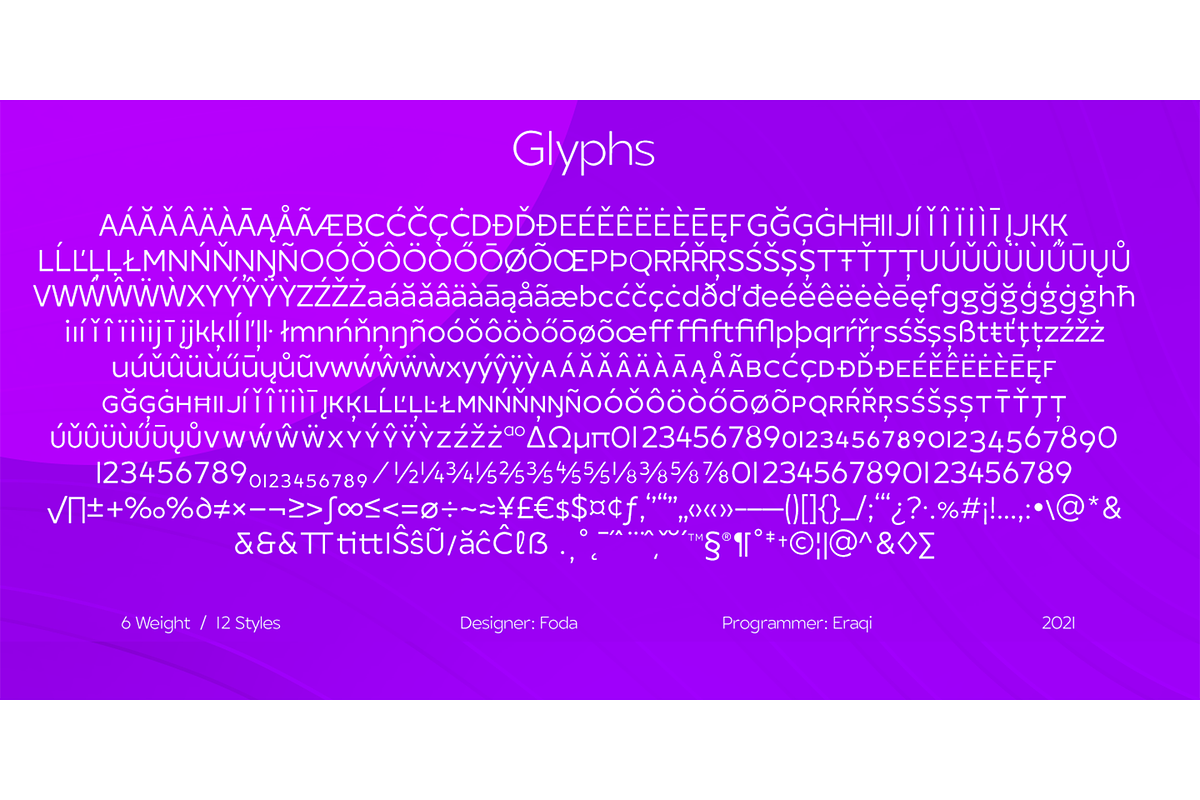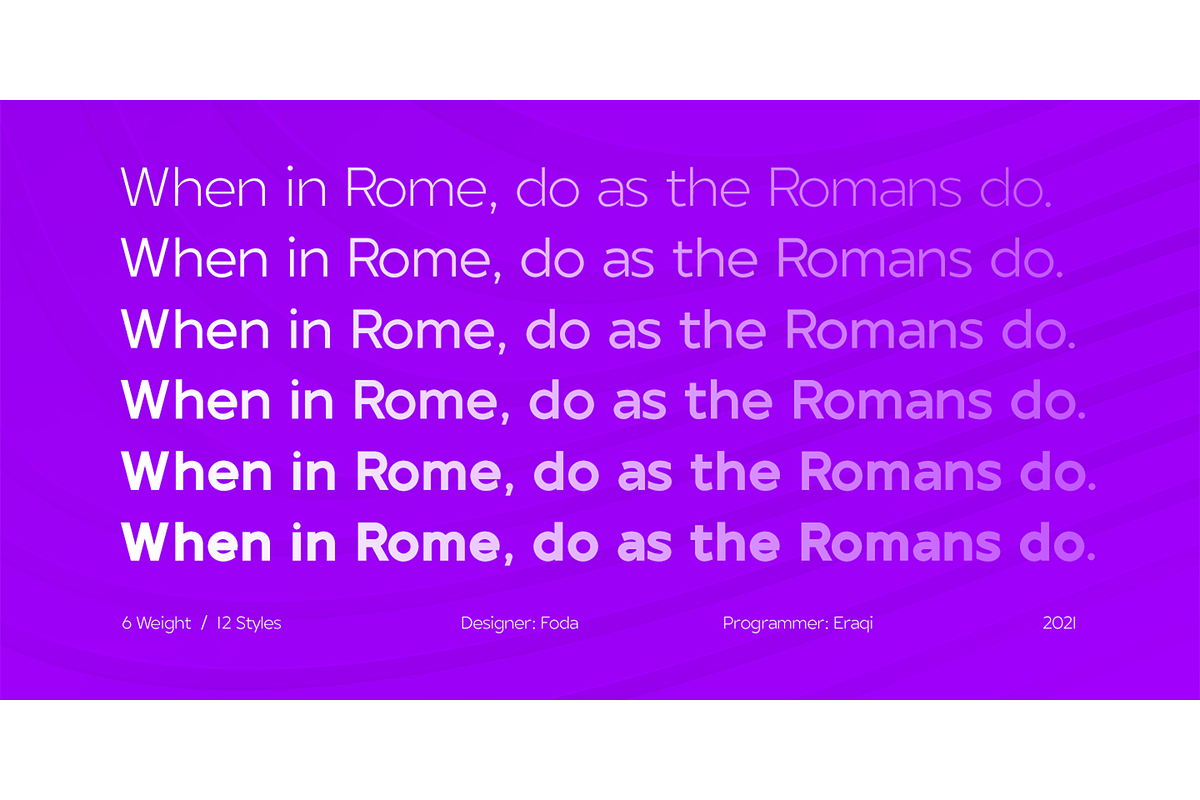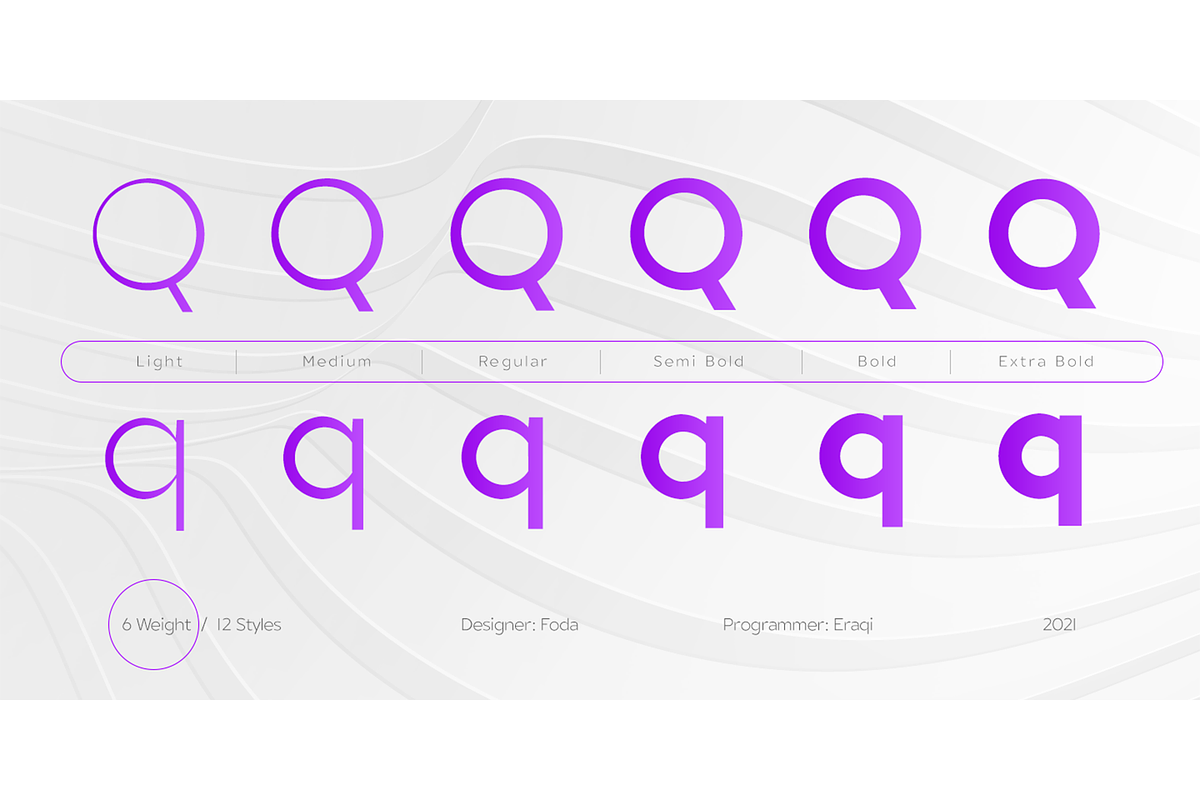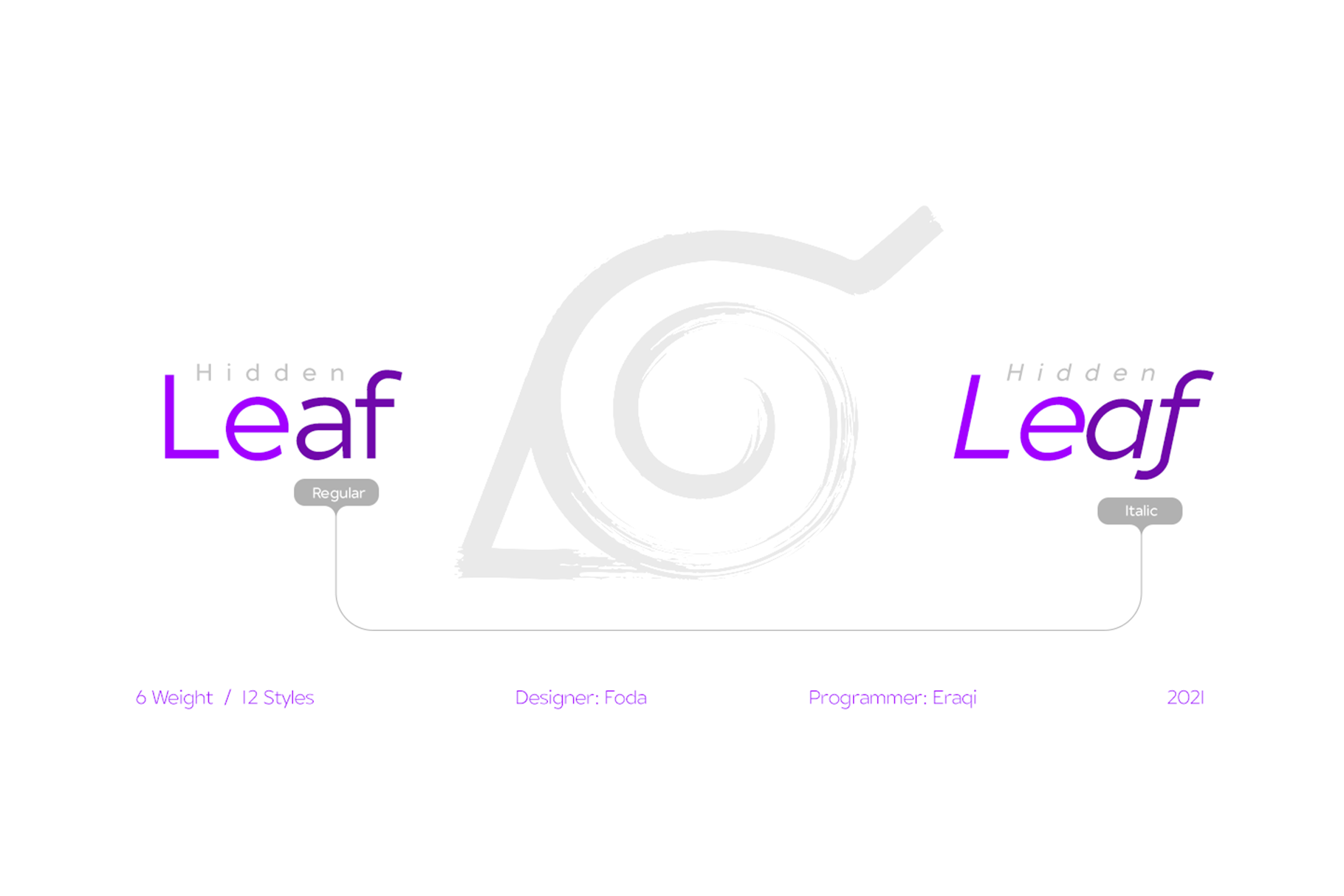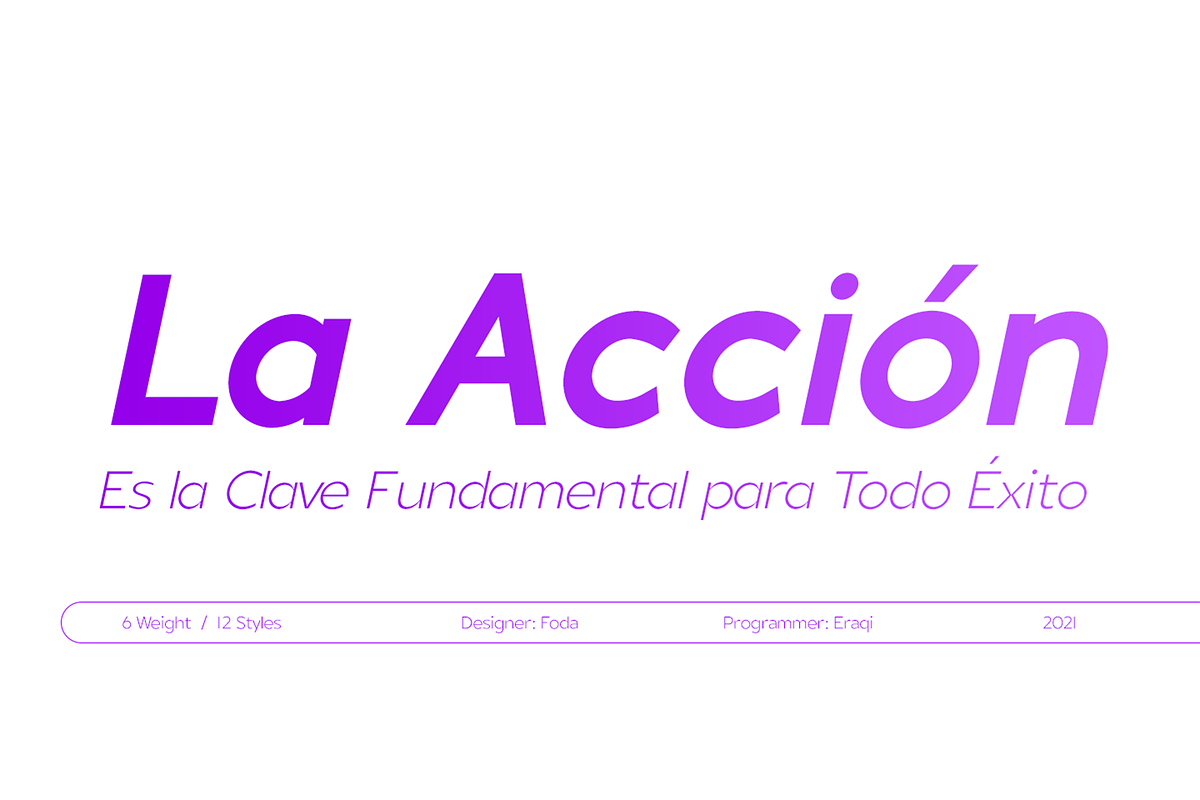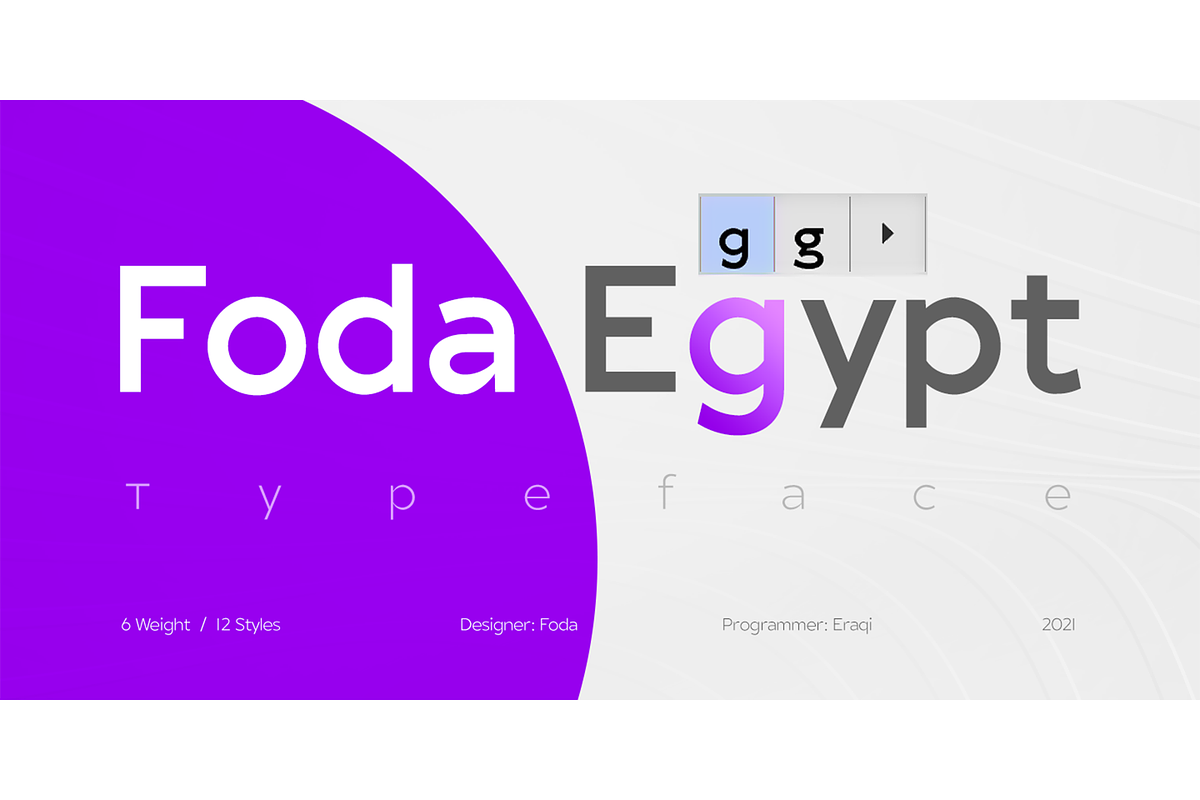
Foda Egypt Font
Foda Egypt is a sans-serif font family comes with 6 main weights and their italics, with 599 glyphs that support many languages and cover many OTF features such as accents, ligatures, kerning and more. Foda Egypt is a stylish modern sans-serif suited for headlines, newspapers and many purposes thanks to the clean lines and sharp edges that render out so clearly on screens which increases legibility for all users.